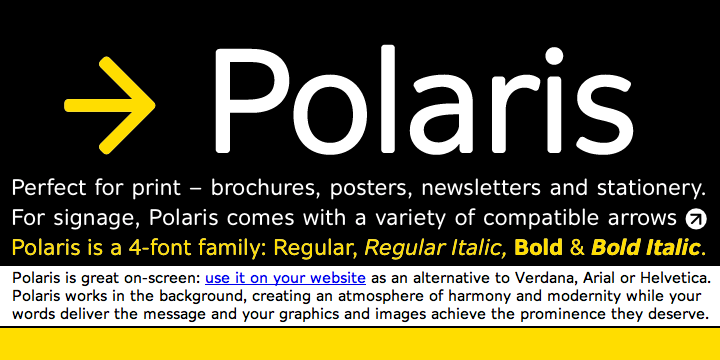
Polaris Font is perfect for technology branding, space exploration projects, navigation systems, scientific publications, modern corporate logos, aerospace designs, futuristic websites, and precision instrument interfaces.
What makes Polaris Font exciting is its stellar combination of geometric precision and cosmic inspiration that guides viewers through clean, navigational clarity. The crisp letterforms and stellar proportions create a sense of direction and reliability reminiscent of the North Star's guiding light.
Polaris Font family includes thin, light, regular, medium, bold, and black weights, plus condensed and extended variations, each available in regular and italic styles for comprehensive stellar typography systems.
Navigate toward design excellence with Polaris Font Free Download, the ultimate guiding star for projects requiring precision and modern sophistication. This exceptional typeface combines astronomical inspiration with contemporary functionality, making it perfect for brands seeking to communicate innovation, reliability, and forward-thinking vision. The meticulously crafted letterforms feature geometric clarity that ensures outstanding readability across all technological applications, from detailed technical documentation to large-scale environmental graphics. Technology professionals and space industry designers consistently select this font for projects demanding the highest standards of precision and futuristic appeal. Its comprehensive weight range provides unlimited creative possibilities while maintaining consistent stellar character throughout your design constellation. Experience the perfect fusion of cosmic inspiration and earthbound functionality that elevates your projects above conventional typography and establishes your brand as a beacon of innovation in today's technology-driven marketplace.